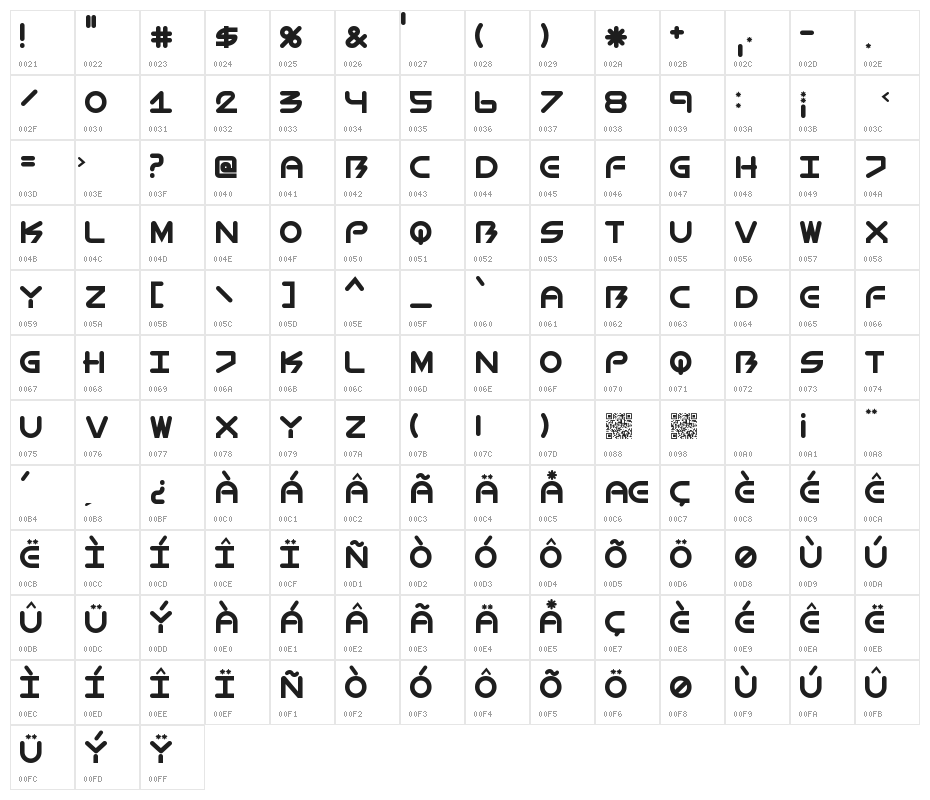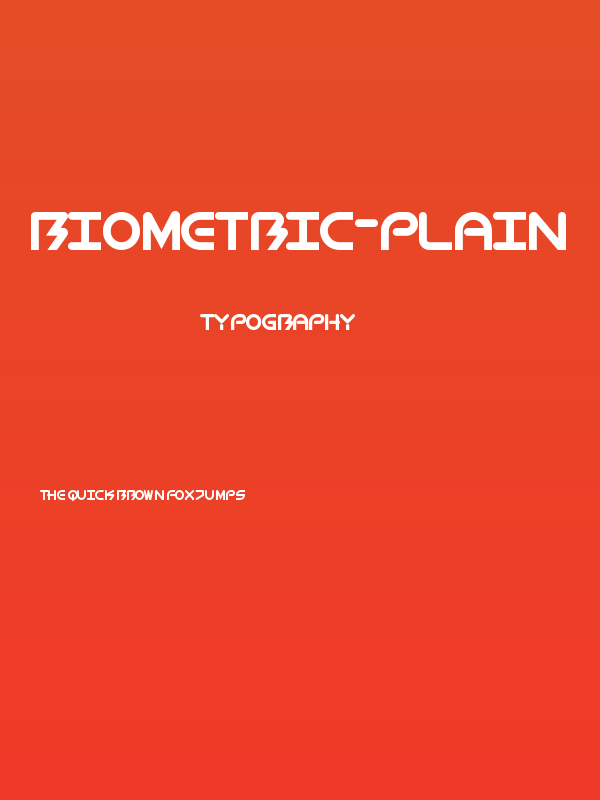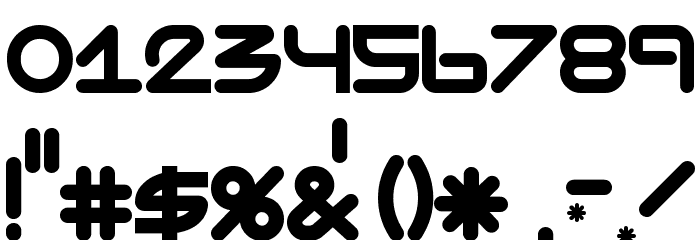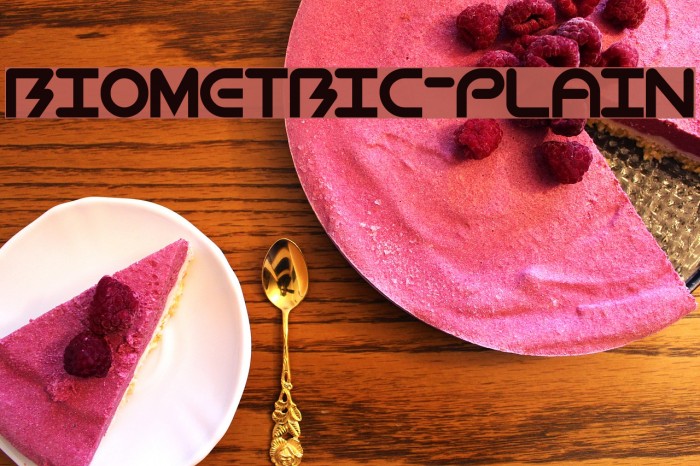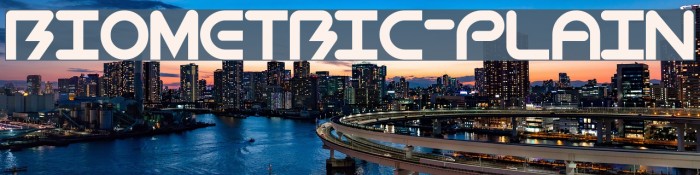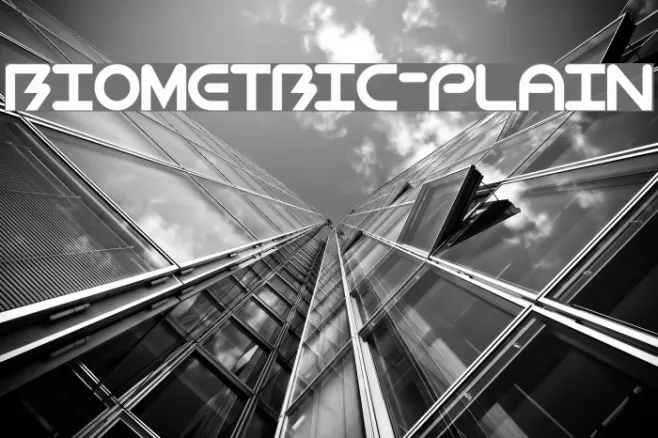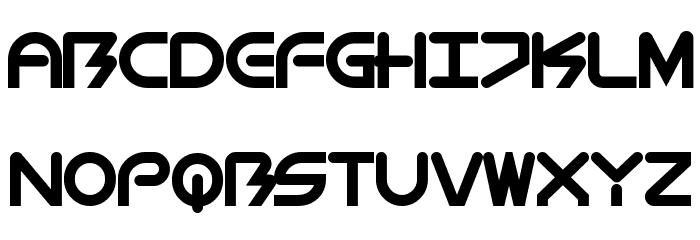
BioMetric-Plain Font
BioMetric-Plain Description
This font features a futuristic and geometric design with bold, clean lines and a modern aesthetic. The characters are crafted with a unique blend of angular and rounded elements, creating a distinctive look that is both sleek and dynamic. The uppercase letters are particularly striking, with a consistent height and width that enhances readability while maintaining a strong visual impact. The numerals and special characters follow the same design principles, ensuring a cohesive appearance across all glyphs. This font is ideal for projects that require a contemporary and tech-forward style.
| Proposed Projects | Ideal for technology branding, sci-fi posters, video game interfaces, and modern advertising campaigns. |